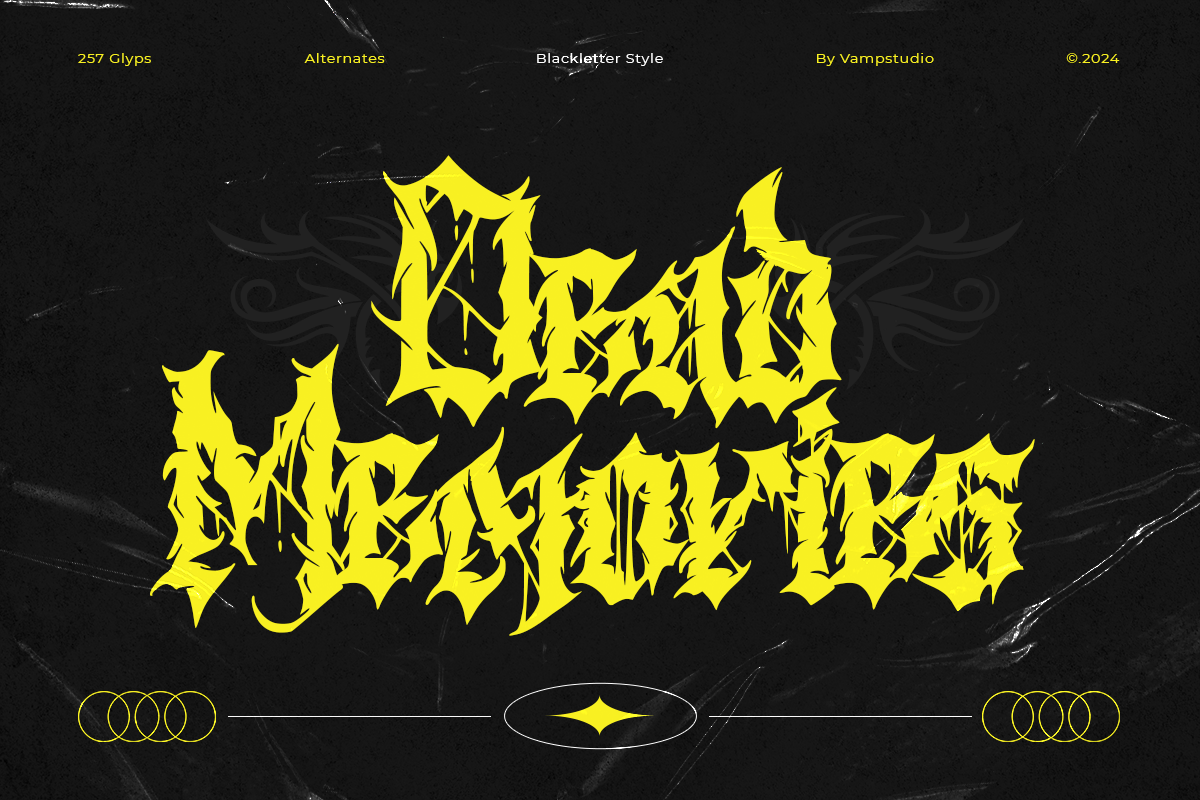
Dead Memories Death Metal Font
Dead Memories is a striking and bold metal font that embodies the essence of heavy metal music and gothic aesthetics. Its sharp, jagged edges and intricate detailing make it perfect for album covers, band logos, and promotional material in the rock and metal music scene. The font’s design evokes a sense of darkness, power, and rebellion, with each letter crafted to appear as if forged from iron, worn with time, and steeped in mystery.
- Distinctive Style: Each character is uniquely styled with dramatic flourishes and pointed tips, making your text stand out with a raw, edgy appeal.
- Versatility: Suitable for a range of applications from digital artwork to physical merchandise like t-shirts, posters, and more.
- High Impact: Ideal for grabbing attention in headlines, titles, and other prominent text placements.
- Full Character Set: Includes uppercase, lowercase, numerals, punctuation, and special characters to accommodate all your design needs.
Unleash the power of Dead Memories to give your designs an unforgettable, hard-hitting impact that resonates with the intensity of heavy metal culture.
- Fonts include multilingual support